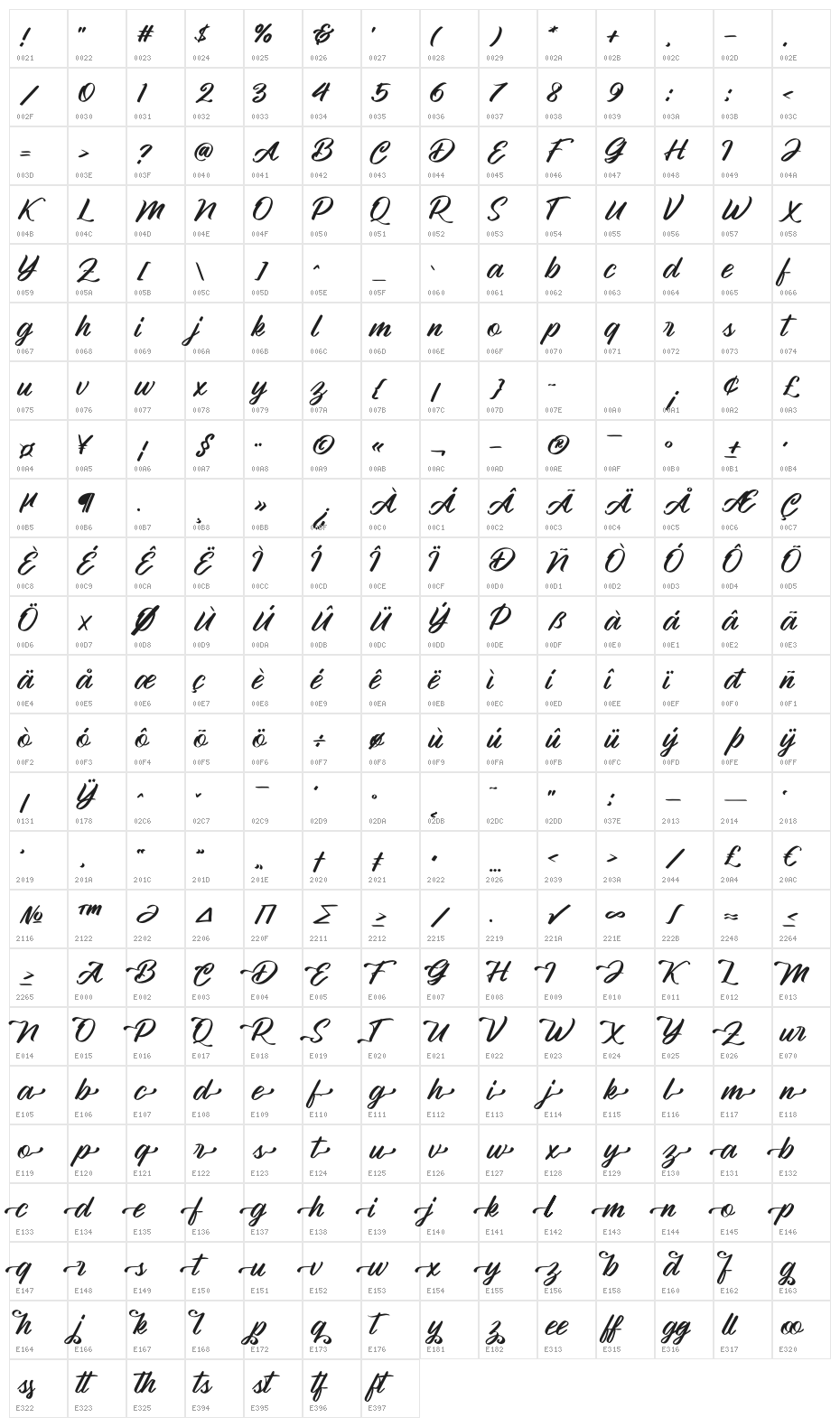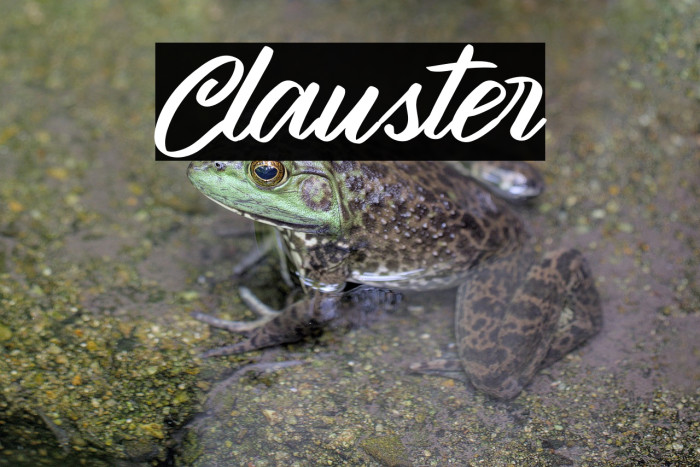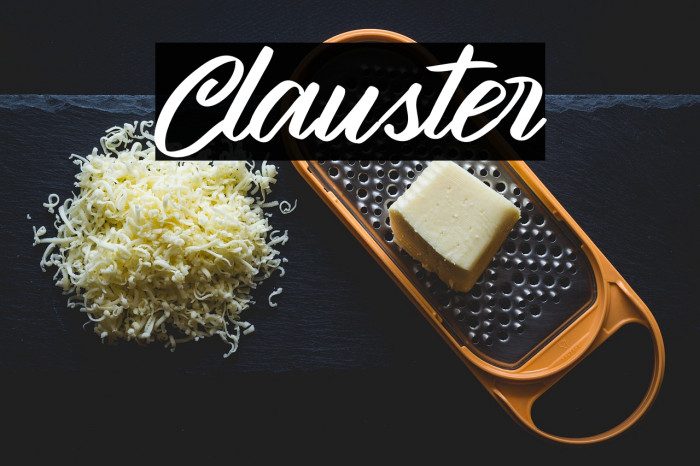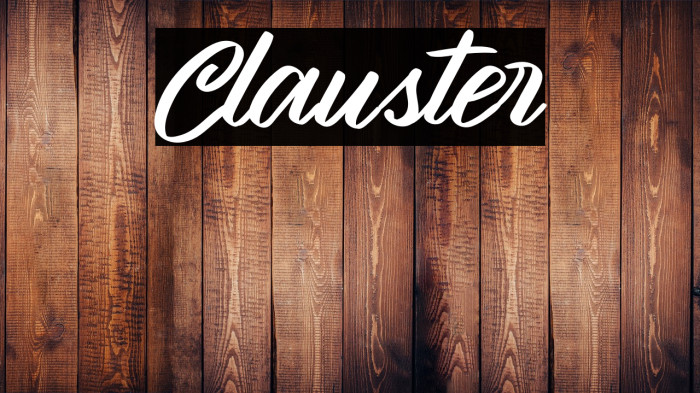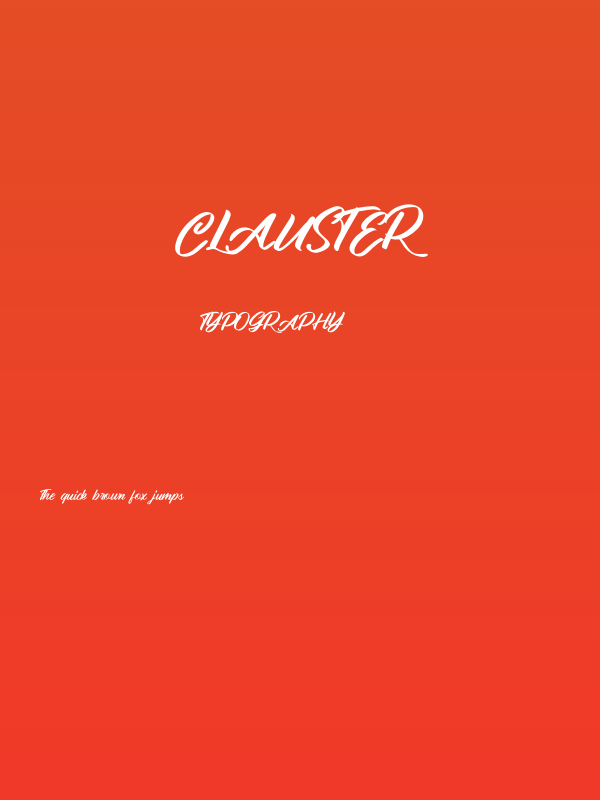
Clauster Font
Clauster Description
This font exudes a dynamic and elegant script style, characterized by its fluid and cursive strokes. The letters are interconnected, creating a seamless flow that mimics natural handwriting. Each character is crafted with a slight slant, enhancing its graceful appearance. The uppercase letters are bold and prominent, while the lowercase letters maintain a consistent rhythm, contributing to the font's overall harmony. The numerals and special characters are designed to complement the alphabet, maintaining the same stylistic flair. This font is ideal for projects that require a touch of sophistication and personal expression.